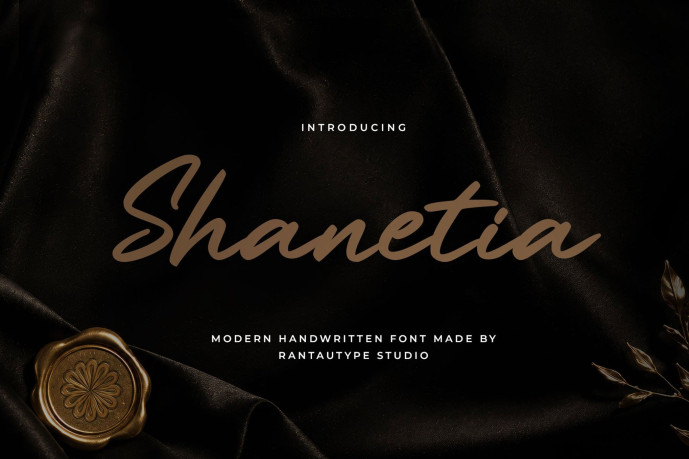
Shanetia Script Font
Shanetia Script Font is font presents a refined handwritten script with fluid movement, wide curves, and soft luxury energy. Shanetia is a perfectly choice for any creative endeavor, creating, modern, lifestyle design such as logotype, title, cover, branding, invitations, wedding designs, display and magazine, social media posts, advertisements, printed quotes, product packaging, corporate brand, product designs, labels, photography, watermarks, special events and any other project with modern touch.